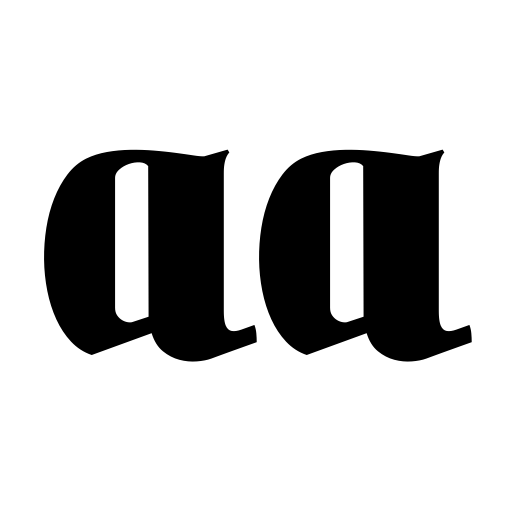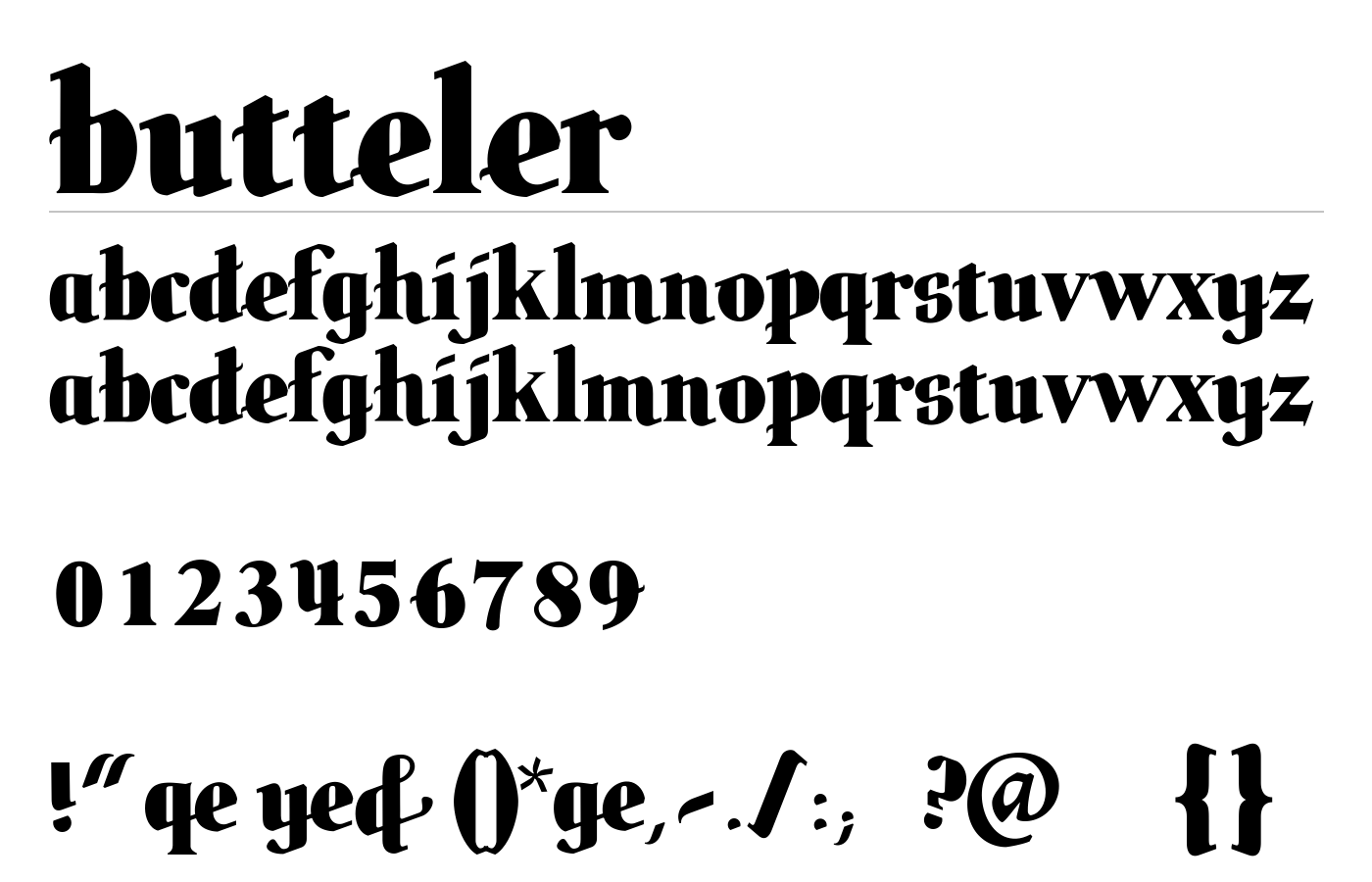
Butteler is a bold, blackletter-inspired serif font with a strong, dramatic presence characterized by its high contrast strokes and sharp, angular serifs. Its condensed letterforms and distinctive calligraphic style give it a vintage, gothic feel that works exceptionally well for headlines, logos, and branding that seek a historic or edgy atmosphere. This font is ideal for projects needing a powerful, attention-grabbing look with a touch of traditional craftsmanship.
butteler Font
About butteler Font
| Designer | Mauro Mesler |